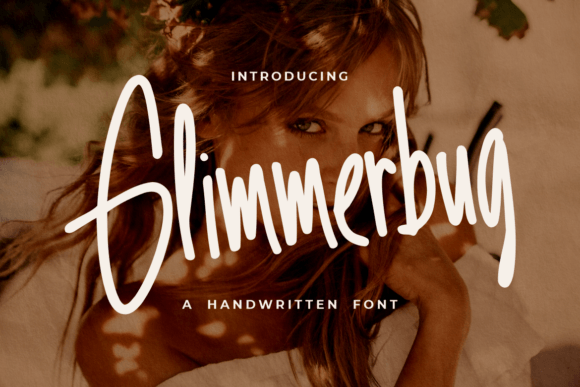
Meet Your New Design BFF: The Glimmerbug Font
Have you ever found yourself scribbling away in a journal, pouring your heart and soul onto the page? That’s exactly the kind of creativity that the Glimmerbug Font embodies. Crafted to capture the essence of luxury handwriting, this typeface brings a touch of personal charm to any project. Whether you’re a seasoned designer or a creative enthusiast, the Glimmerbug Font is sure to leave an impression.
With its delicate monoline strokes and rounded edges, the Glimmerbug Font is the perfect combination of classic calligraphy and modern twist. Its versatility makes it ideal for a wide range of projects, from wedding invitations to boutique branding. The Glimmerbug Font is a valuable addition to any designer’s toolkit, offering a unique and sophisticated touch that sets projects apart.
Glimmerbug Font Key Features
- Font Family: Glimmerbug is a unique, hand-drawn font with a whimsical feel.
- Unique Characteristics: Glimmerbug features intricate, hand-drawn details and a mix of uppercase and lowercase letters for a playful, storybook feel.
Glimmerbug Font Review
Overall, I was really excited to dive into the Glimmerbug Font, but my experience was a bit of a mixed bag. ✨
- The Glimmerbug Font has some amazing, unique flair to it, with a distinct sparkle that catches the eye.
- The font’s ability to be highly customizable really makes it stand out – from color to texture, you can tweak it to fit your needs.
- The Glimmerbug Font is incredibly versatile, working well for both digital and print use.
- The font’s sparkly aesthetic can be overwhelming at times, making it difficult to read for extended periods. ⚠️
- The customization options, while great, can also make the font feel cluttered or over-accessorized.
- The Glimmerbug Font may not be the best choice for projects that require a more professional or traditional look.
Overall, the Glimmerbug Font is a great choice for projects that need a bit of whimsy or flair, but may not be the best fit for more serious or professional applications.
Getting the Most Out of Glimmerbug Font
For optimal results, use Glimmerbug Font in conjunction with bold or italic text to create a striking visual effect.
Glimmerbug Font is ideal for:
Party and event decorations
Magazine and newspaper headlines